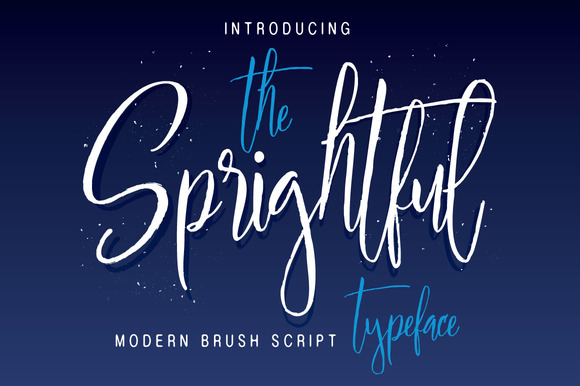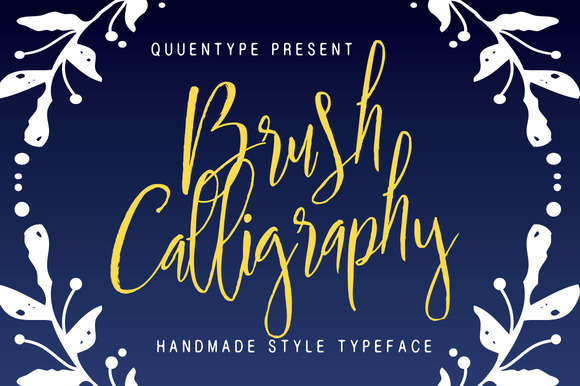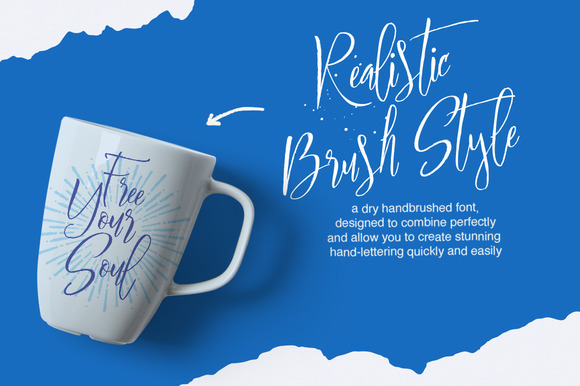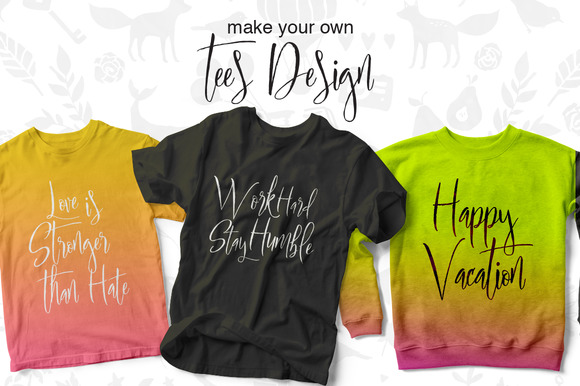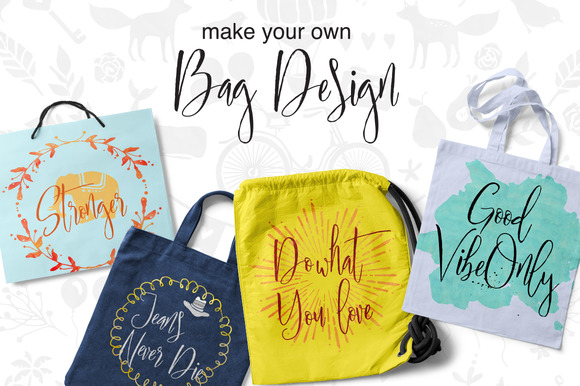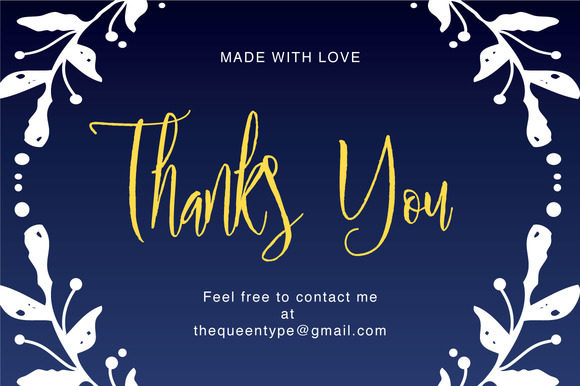
Sprightful Font
About Sprightful Font
Sprightful Typeface is a beautiful hand Painted script with a natural look.  Perfect for those who like to be creative!